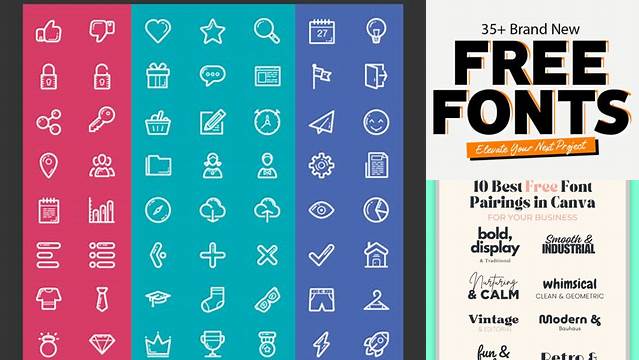
Free Font Icons: Enhance Your Website Design
Hey guys! Are you looking to spice up your website and make it visually appealing? Well, you're in the right place! One of the easiest and most effective ways to do this is by using free font icons! They are fantastic for adding a modern touch, improving user experience, and making your site more engaging. This article dives deep into the world of font icons, exploring their benefits, and showcasing some of the best free resources available. Let's get started!
Why Choose Free Font Icons for Your Website?
So, why should you bother with font icons, especially free ones? Good question! Using free font icons can really step up your website’s game. First off, they look awesome! They're clean, scalable, and fit perfectly with modern design trends. They offer a polished, professional aesthetic that can make your website stand out from the crowd. Moreover, font icons are super easy to use. You can treat them just like text, which means you can change their size, color, and style with simple CSS. No complex image editing is required! This is a huge time-saver for developers and designers alike. Plus, they’re incredibly versatile. You can use them for everything from social media buttons and navigation menus to call-to-action buttons and informational graphics. The possibilities are practically endless!
Another massive advantage is that font icons are vector-based. This means they scale perfectly to any size without losing quality. Imagine a user with a high-resolution display; your icons will look crisp and sharp, regardless of their size. This responsiveness is crucial in today's multi-device world. Users access websites from phones, tablets, and desktops with varying screen resolutions. Font icons ensure a consistent, high-quality visual experience across all devices. Furthermore, using font icons often improves your website's loading speed. Unlike image-based icons, which require separate HTTP requests, font icons are typically loaded as a single font file. This reduces the number of requests and can significantly improve your website's performance. A faster website leads to happier users and can even boost your search engine rankings. Google and other search engines prioritize websites that provide a good user experience, and speed is a key factor. So, if you're looking to improve your website's visual appeal, usability, and performance, free font icons are definitely the way to go!
The Perks of Font Icons
Font icons bring a lot to the table! Here's a quick rundown of the advantages:
- Scalability: They look sharp no matter the size.
- Customization: Easily change color, size, and more with CSS.
- Performance: Often load faster than image-based icons.
- Versatility: Use them for pretty much anything.
- SEO-Friendly: They can improve website speed, which is good for SEO.
Top Free Font Icon Resources
Alright, now for the good stuff! There are tons of free resources out there offering amazing font icons. Let's dive into some of the best, shall we? These resources are packed with diverse icons, and are easy to use. Here's a list to get you started:
1. Font Awesome
Font Awesome is a total classic, and for good reason! It's one of the most popular and widely used font icon libraries out there, and it's free! The free version of Font Awesome gives you access to a massive library of icons that cover all sorts of categories. From social media icons and general symbols to arrows and brand logos, Font Awesome has you covered. The icons are all vector-based, so you can scale them up or down without any loss of quality. This is super helpful when designing responsive websites that need to look great on all kinds of devices.
Font Awesome regularly updates its library with new icons, ensuring that it stays current with the latest design trends and popular brands. This constant evolution makes it an invaluable resource for web designers who need access to a wide variety of icons. With its ease of use, extensive library, and community support, Font Awesome is a must-have tool for any web designer looking to enhance their website with professional-looking icons. Trust me, you won’t regret it!
2. Bootstrap Icons
If you're already using Bootstrap for your website's framework, then Bootstrap Icons is the perfect choice! It's a free, open-source icon library designed by the Bootstrap team, and it's specifically tailored to work seamlessly with the Bootstrap framework. This means you can integrate the icons with your Bootstrap-powered website with minimal effort, making your workflow super smooth.
Bootstrap Icons offers a good selection of icons covering a wide range of common use cases. The icons are clean, modern, and designed to match Bootstrap's aesthetic. They are designed to be easily customized using CSS, making it super easy to change their size, color, and style to fit your website's design. One of the standout features of Bootstrap Icons is its tight integration with the Bootstrap framework. This means the icons are styled to look great with Bootstrap’s pre-built components. This is especially handy if you want to create a consistent look and feel across your website. Using Bootstrap Icons, you can effortlessly add icons to buttons, navigation bars, forms, and other Bootstrap elements. The library offers clear documentation and examples on their website to guide you through integrating the icons into your project.
For those already familiar with Bootstrap, using Bootstrap Icons is a no-brainer! It’s designed to work hand-in-hand with the framework, so you'll find the setup and integration process incredibly straightforward. The focus on a clean, modern design makes it a great choice for any project where you need visually appealing icons that also align with Bootstrap's overall look. Consider Bootstrap Icons if you value seamless integration and a cohesive design. You will surely enjoy it!
3. Remix Icon
Remix Icon is a rising star in the world of free font icons, and it's definitely worth checking out! It's an open-source icon library that provides a massive collection of icons with a focus on a simple, consistent, and modern design. The icons are designed with a 24x24 grid, ensuring consistency in terms of size and visual style. Remix Icon's design philosophy is all about simplicity and elegance. The icons are crafted to be clean and easy to understand, making them ideal for a variety of use cases, from website navigation to informational graphics.
One of the best things about Remix Icon is its versatility. The icons come in two styles: line and fill. This gives you the flexibility to choose the style that best suits your website’s design. The line style offers a minimalist look, while the fill style provides a bolder, more noticeable appearance. This flexibility allows you to create a cohesive visual style throughout your website. The Remix Icon website is super easy to navigate, making it simple to browse and find the right icons for your needs. The icons are well-organized into categories, making it easy to search for what you're looking for. Like other leading icon libraries, Remix Icon is also super easy to integrate into your website. You can download the font files and use them locally, or you can use the CDN for quicker loading. The documentation is great and offers clear instructions on how to use the icons. Remix Icon is a fantastic choice for anyone looking for a modern, consistent, and versatile icon library. Its focus on simplicity and elegance, combined with its flexible styles, makes it perfect for a wide range of web design projects. Give it a try; you won't be disappointed!
4. IcoMoon
IcoMoon is a fantastic all-in-one resource that goes beyond just providing icons. It’s a custom icon font generator and a library of vector icons. What makes IcoMoon stand out is the ability to create your own custom icon fonts. This is amazing because you can select exactly the icons you need and create a font file containing only those icons. This can help significantly reduce the size of your font file, which improves your website’s loading speed and performance. With IcoMoon, you can import your own custom SVG icons. This feature lets you include unique, branded icons into your website. This adds a level of customization that's hard to beat. IcoMoon also provides a library of free icons. They are well-designed and cover a wide range of categories, making it easy to find the right icons for your needs.
IcoMoon provides a web app where you can search, select, and customize your icons. The app is user-friendly, allowing you to easily pick and choose the icons you want to use. You can then generate your custom font file. This file can be downloaded and used on your website. You can customize the icons' appearance using CSS, allowing you to control their size, color, and more. This gives you the flexibility to make the icons fit your website's design perfectly. IcoMoon's emphasis on customization makes it perfect for any designer who wants full control over their icon library. From creating custom icon fonts to importing your own icons, IcoMoon gives you the tools to create a visually stunning and optimized website. If you're looking for a versatile and powerful solution for your website's icons, IcoMoon is a great choice. I highly recommend it!
How to Use Font Icons on Your Website
Now that you know about some fantastic resources, let's talk about how to get these icons onto your website. The process is generally pretty straightforward, but here’s a step-by-step guide to make it even easier.
1. Choose Your Icon Library
First off, select the icon library that best fits your needs. Consider the design style, the variety of icons available, and the ease of integration. Font Awesome, Bootstrap Icons, Remix Icon, and IcoMoon are all great options! Choose what works best for you!
2. Include the Font Files
Next, you need to include the font files on your website. This is usually done in one of two ways:
- CDN (Content Delivery Network): Many icon libraries offer a CDN, which allows you to link to the font files directly from their servers. This is often the easiest and fastest way to include the fonts, as it doesn’t require you to download and host the files yourself. You just add a simple
<link>tag to your HTML. For example, with Font Awesome, you might add:<link rel="stylesheet" href="https://cdnjs.cloudflare.com/ajax/libs/font-awesome/6.0.0/css/all.min.css">. - Local Download: Alternatively, you can download the font files (usually a font file and a CSS file) from the library’s website and host them on your server. This gives you more control, but it also means you're responsible for managing the files and updating them when necessary.
3. Use the Icons in Your HTML
Once the font files are included, you can start using the icons in your HTML. This is typically done by adding an <i> tag or a <span> tag with the appropriate class names. The specific class names depend on the icon library you are using. For example, with Font Awesome, you might use <i> with the class fa and the specific icon class, such as <i class="fas fa-home"></i> for a home icon. Bootstrap Icons would have a different syntax, and so on. Refer to the documentation of your chosen icon library for the correct class names and usage examples.
4. Style with CSS
Finally, use CSS to customize the appearance of your icons. You can change their size, color, and add effects like hover states. This is where the real fun begins! You can make the icons fit seamlessly with your website's design. For example:
.fa-home {
color: #007bff; /* Change the color */
font-size: 24px; /* Change the size */
}
.fa-home:hover {
color: #0056b3; /* Add a hover effect */
}
By following these steps, you can quickly and easily add stunning font icons to your website! These easy steps will have you looking like a web design pro in no time!
Tips and Tricks for Using Font Icons
Let's take a look at some useful tips and tricks for using font icons to their fullest potential.
1. Optimize for Performance
While font icons are generally more efficient than image-based icons, you can still optimize them for performance. Here are a few tips:
- Choose Only the Icons You Need: Don’t include the entire icon library if you only use a few icons. Use a tool like IcoMoon to create a custom font file that includes only the icons you require.
- Use a CDN: As mentioned, CDNs are usually a great way to ensure fast loading times, as the files are served from servers close to your users.
- Minify CSS and JavaScript: If you’re using CSS or JavaScript to style your icons, minify these files to reduce their size.
2. Maintain Consistency
Consistency is key when using font icons. Make sure your icons have a consistent style and size throughout your website. This will make your website look professional and easier to navigate. Consider these tips:
- Stick to One Library: Try to use icons from a single library, or at least choose libraries with a similar style.
- Use Consistent Sizes: Use the same font size for all icons, or use a set of pre-defined sizes.
- Maintain Alignment: Ensure your icons are vertically aligned with surrounding text and elements.
3. Use Accessibility Features
Make your icons accessible to all users. Here are some things to consider:
- Provide Alt Text: Always provide alternative text (using the
aria-labelattribute) for icons that convey important information. For example:<i class="fas fa-search" aria-label="Search"></i>. - Use ARIA Attributes: Use ARIA attributes to improve the accessibility of complex icons or interactive elements.
- Ensure Sufficient Contrast: Make sure your icons have sufficient contrast with the background to be readable for users with visual impairments.
4. Stay Updated
Keep your icon libraries updated! Icon libraries often release updates with new icons, bug fixes, and performance improvements. Regularly check for updates and update your files to take advantage of these enhancements.
Conclusion: Level Up Your Website with Free Font Icons
Alright, guys! You now have a solid understanding of free font icons and how to use them effectively on your website. We've looked at the benefits, explored some of the best resources, and covered how to get started. Using font icons can significantly improve your website's visual appeal, performance, and user experience. So go out there, try out some of these amazing resources, and watch your website shine! With a little effort, you can create a website that's not only functional but also visually stunning. Happy designing!